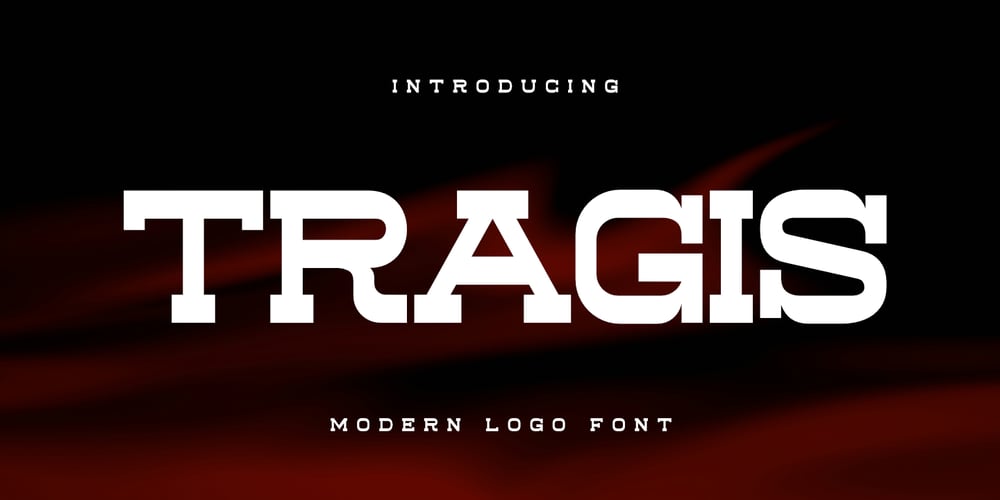
Tragis
Tragis font
Tragis Font Family was designed by Saiful Anwar and published by Sealoung. Tragis contains 1 styles and family package options. Introducing a modern serif display font, perfect for sports, racing, and action-themed design projects.This fresh serif display font is meticulously crafted for headlines, titles, and any typographic needs that demand a striking style. It’s ideal for emphasizing your design and drawing attention to important headlines. With its futuristic and modern vibe, this font is perfect for projects focused on communicating your core message.Tragis Modern Serif Display Font includes: Preview samples to inspire your design with the Varien font. Fully equipped with uppercase characters. Multilingual support. Number and symbol. We hope you enjoy using our font! 🙂